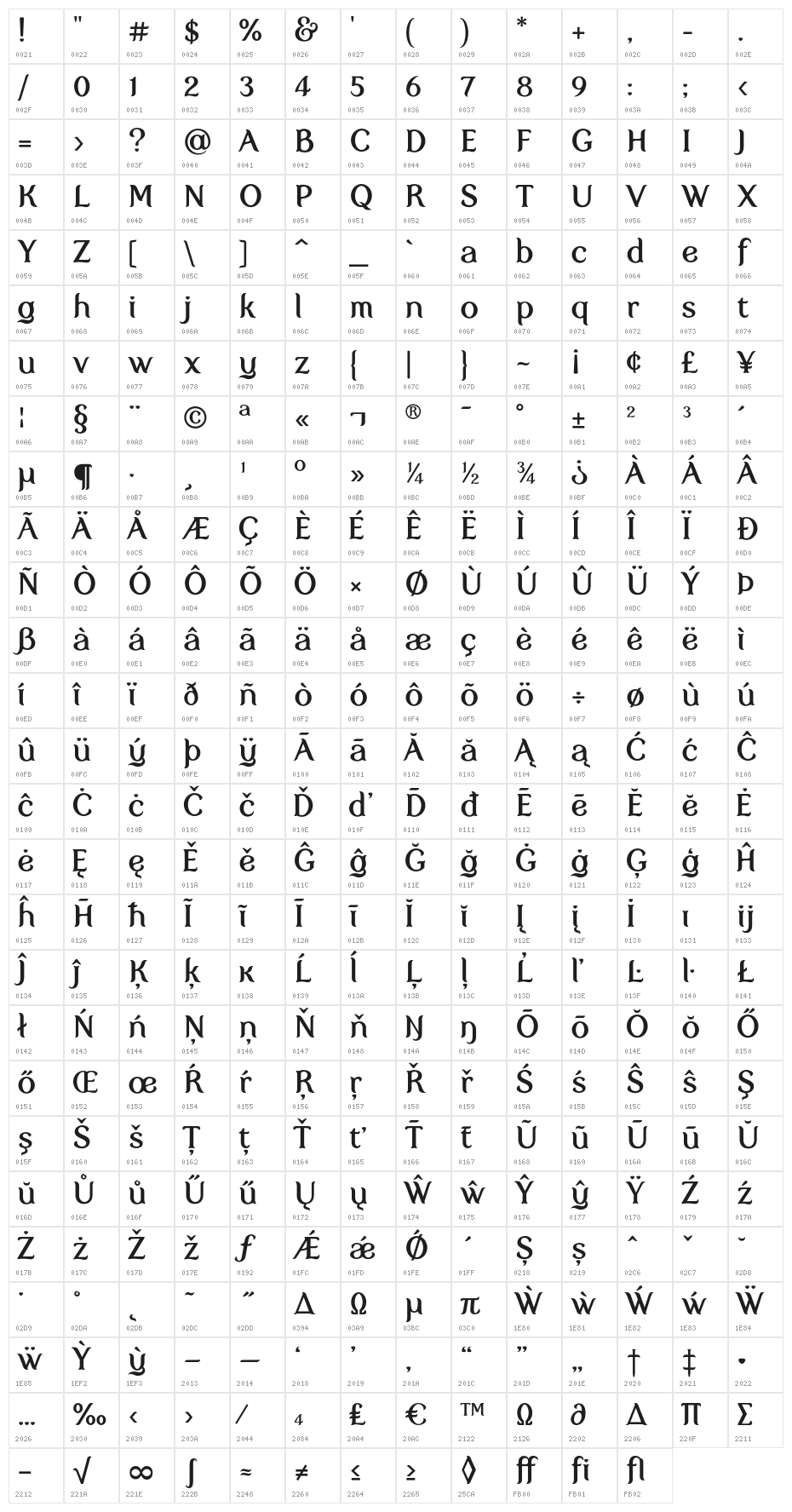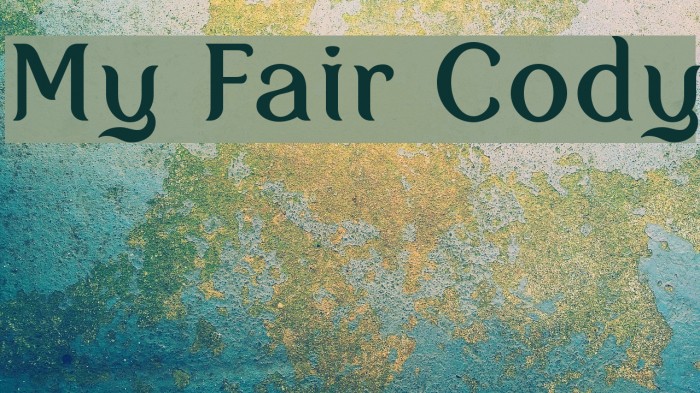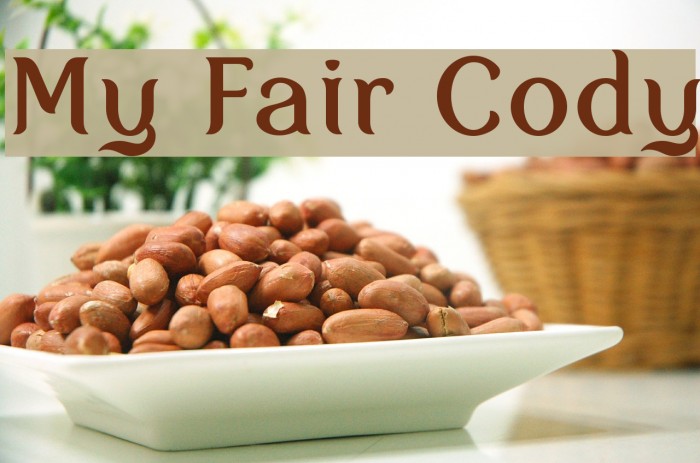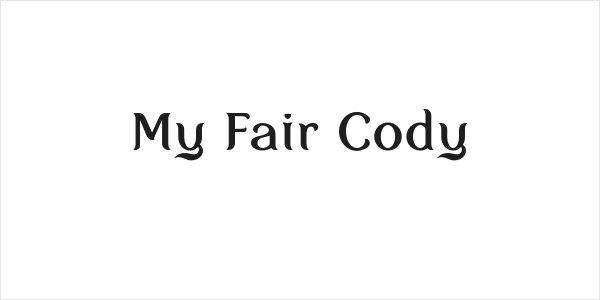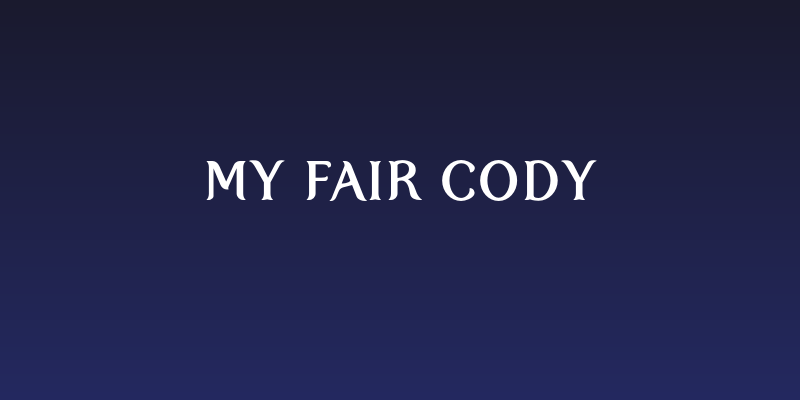
My Fair Cody Font
My Fair Cody Description
This font features a classic serif style with elegant curves and a traditional feel. The uppercase letters are bold and commanding, while the lowercase letters maintain a graceful flow with subtle serifs. The numerals are distinct and easy to read, complementing the overall design. Special characters are well-integrated, maintaining the font's cohesive appearance. The font's design is suitable for conveying sophistication and timelessness, making it ideal for projects that require a touch of elegance.
| Proposed Projects | Ideal for book covers, formal invitations, branding for luxury products, and editorial design. |